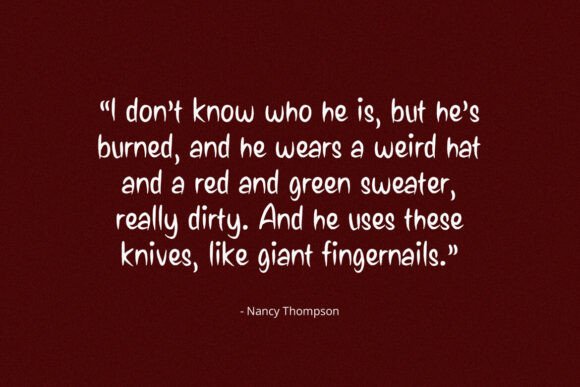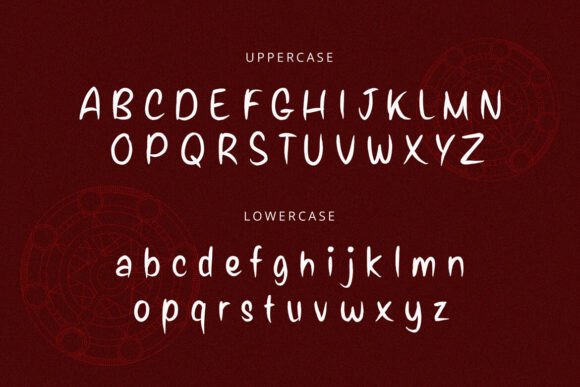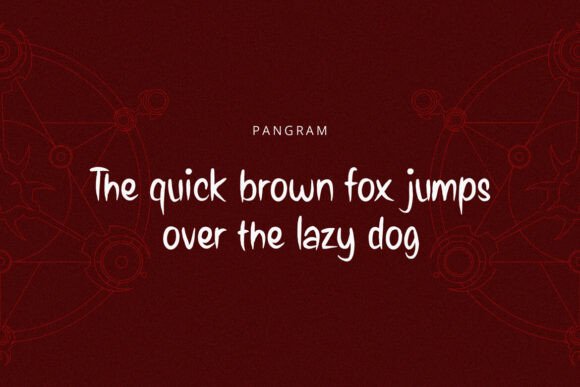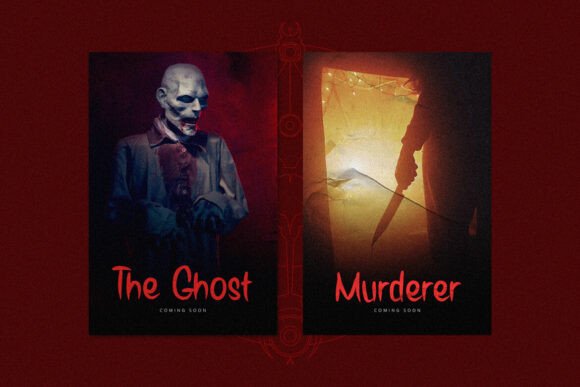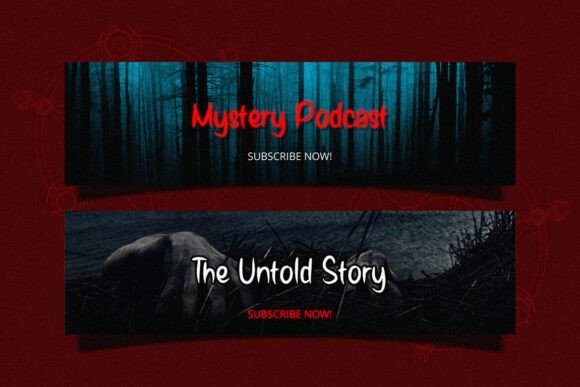
Unleash the Magic with Deadly Witch Font: A Spooky yet Versatile Display Font
Are you a designer or crafter looking for a unique and captivating font to add a touch of magic to your projects? Look no further than the Deadly Witch Font, a fascinating display font that is sure to cast a spell on your audience. With its intriguing blend of spooky and sophisticated elements, this font is perfect for a wide range of creative endeavors.
The Allure of Deadly Witch Font
Deadly Witch Font is a one-of-a-kind typeface that exudes an air of mystique and enchantment. Its distinctive design makes it an excellent choice for projects that require a dash of whimsy and personality. Whether you’re working on a Halloween-themed design, a fantasy-inspired craft, or simply want to add some visual interest to your artwork, Deadly Witch Font is sure to impress.
Key Features of Deadly Witch Font
- Unique and eye-catching design: Deadly Witch Font boasts an unmistakable style that sets it apart from more traditional fonts.
- Spooky yet sophisticated: This font strikes the perfect balance between eerie and elegant, making it suitable for a variety of contexts.
- Highly versatile: Deadly Witch Font can be used in a range of creative projects, from digital designs to handmade crafts.
- Easily readable: Despite its ornate design, this font remains clear and legible, ensuring your message is conveyed effectively.
Design Applications for Deadly Witch Font
The versatility of Deadly Witch Font makes it an excellent addition to any designer’s toolkit. Here are some ideas for incorporating this font into your projects:
- Halloween-themed designs: Create spooky invitations, posters, and social media graphics that are sure to send chills down the spine.
- Fantasy and fiction projects: Add a touch of magic to your book covers, character designs, and fantasy-inspired artwork.
- Crafting and DIY projects: Use Deadly Witch Font to create eye-catching titles and labels for your handmade crafts, such as potions, candles, and spellbooks.
- Digital art and illustrations: Incorporate this font into your digital art pieces, such as eerie landscapes, mystical creatures, and enchanting portraits.
Tips for Using Deadly Witch Font
To get the most out of Deadly Witch Font, consider the following tips:
- Experiment with font sizes and colors: Play around with different font sizes and colors to create visual interest and hierarchy in your designs.
- Pair with complementary fonts: Combine Deadly Witch Font with other fonts that complement its unique style, such as elegant scripts or bold sans-serifs.
- Use in moderation: While Deadly Witch Font is certainly attention-grabbing, it’s best to use it sparingly to avoid overwhelming your design.
| Font Name | Deadly Witch Font |
| Author | zerologicstudio |
In conclusion, Deadly Witch Font is a captivating display font that is sure to add a touch of magic to your designs and crafts. With its unique blend of spooky and sophisticated elements, this font is perfect for a wide range of creative projects. Whether you’re a designer, crafter, or simply someone who appreciates the art of typography, Deadly Witch Font is an excellent addition to your toolkit.
So why not unleash the magic of Deadly Witch Font and see where it takes your creativity? With its versatility, readability, and eye-catching design, this font is sure to cast a spell on your audience and leave a lasting impression.